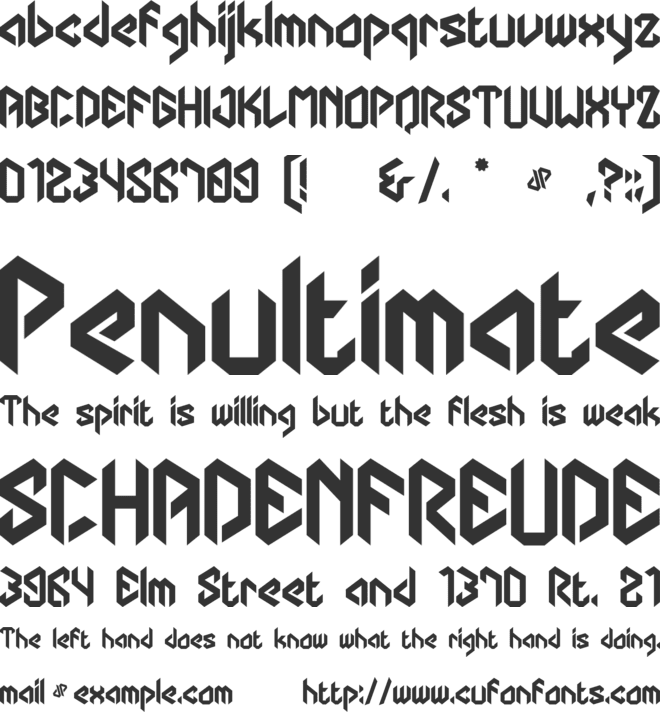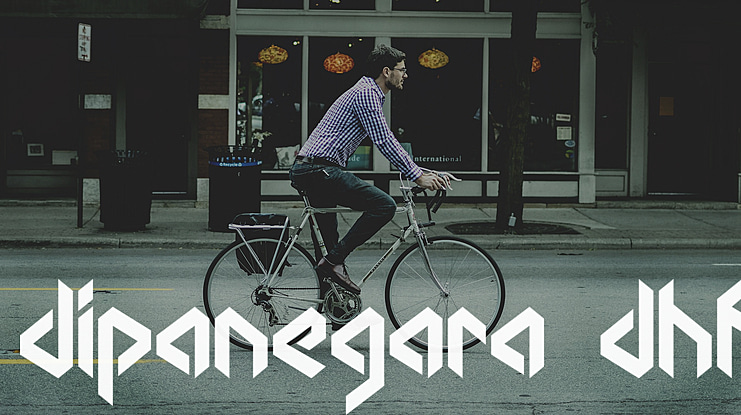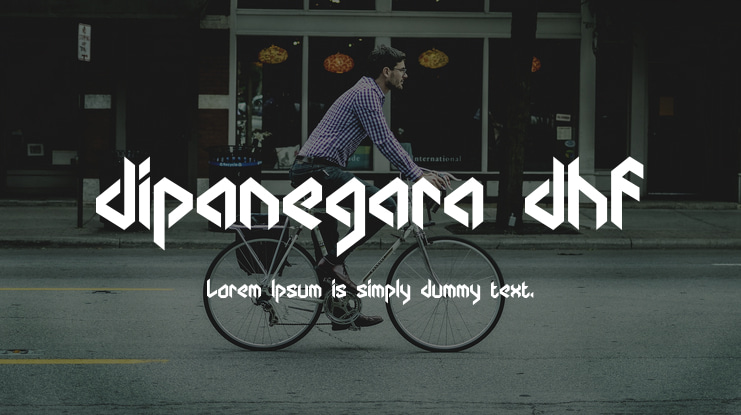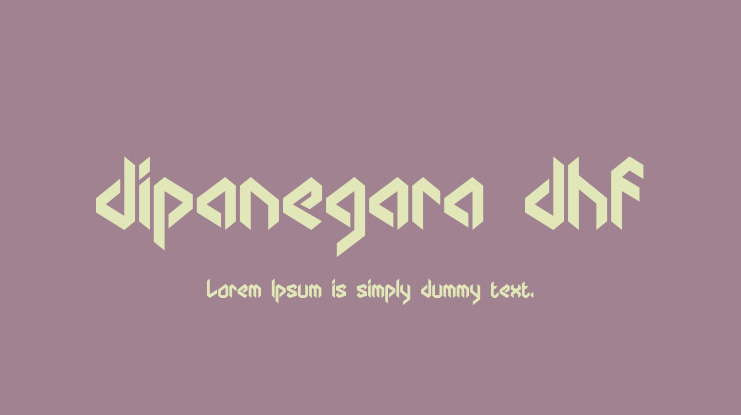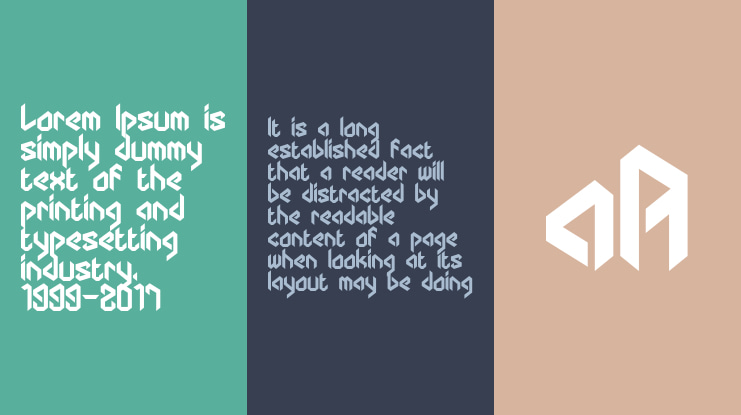
dipanegara dhf Font
Dexsar Harry Anugrah
This font was inspired by DIPANEGARA LOGO that is dp. I like the DIPANEGARA LOGO so that i try for making a font is according to DIPANEGARA LOGO theme...